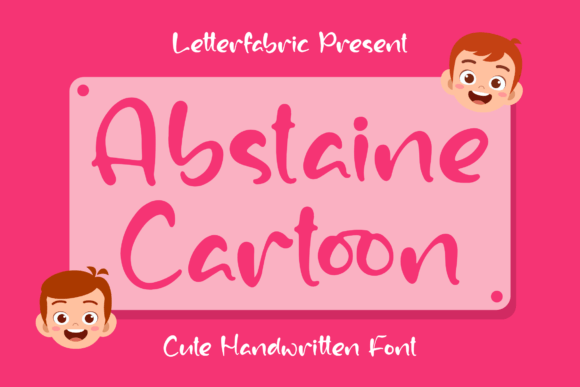
Unlocking the Joy of Handwritten Fonts
Have you ever found yourself rummaging through your stash of craft supplies, searching for the perfect font to add a touch of whimsy to your latest project? You’re not alone. For many designers and creatives, finding the right font can be a game-changer. It’s that moment when your design comes together, and you can’t wait to share it with the world.
Enter Abstaine Cartoon Font, a delightful handwritten font that’s sure to put a smile on your face. Designed to convey impeccable friendliness, this font is perfect for crafts, digital design, presentations, and making greeting cards. Whether you’re a seasoned designer or just starting out, Abstaine Cartoon Font is a valuable addition to your toolkit.
Abstaine Cartoon Font Key Features
- Character Count: The font includes a total of 400 characters, including uppercase and lowercase letters, numbers, and special characters, making it suitable for a variety of design applications.
- Unique Characteristics: The font’s playful and cartoon-like aesthetic, with rounded edges and soft lines, makes it perfect for children’s books, educational materials, and other projects requiring a friendly and approachable tone.
Abstaine Cartoon Font Review
Overall, I think Abstaine Cartoon Font is a fun and playful font that can add a touch of whimsy to any design project. ✨
- Unique and quirky design that’s perfect for cartoon-style illustrations and animations ✨
- Well-suited for digital projects, such as social media graphics, web design, and mobile apps ✨
- Highly customizable, with a wide range of weight and style options available ✨
- May not be suitable for formal or professional projects, as it’s a bit too playful and cartoonish ⚠️
- Can be difficult to read in smaller sizes, due to the font’s irregular letterforms ⚠️
I think Abstaine Cartoon Font is a great addition to any designer’s toolkit, as long as they’re aware of its limitations. With its unique design and high level of customizability, it’s perfect for projects that need a bit of whimsy and personality. Just be sure to use it judiciously and in the right context!
Tips for Getting the Most Out of Abstain Cartoon Font
For optimal results, use the Abstain Cartoon Font in bold or italic styles to add emphasis and visual interest. Experiment with different font sizes and combinations to achieve the desired look.
The Abstain Cartoon Font is ideal for:
- Cartoon-style advertising
- Webcomic graphics
Alternatives to Abstaine Cartoon Font for Designers
1. Comic Sans
Comic Sans is a classic, playful font that is perfect for informal and casual designs. It is great for creating a lighthearted and humorous tone in designs such as children’s books, advertisements, and social media graphics. Compared to Abstaine Cartoon Font, Comic Sans has a more rounded and simplistic design, making it suitable for a wider range of applications.
Pacifico is a modern, cursive font that is ideal for designs that require a touch of elegance and sophistication. It is perfect for creating a romantic and whimsical tone in designs such as wedding invitations, greeting cards, and lifestyle magazines. Unlike Abstaine Cartoon Font, Pacifico has a more refined and polished design, making it suitable for high-end and luxury brands.